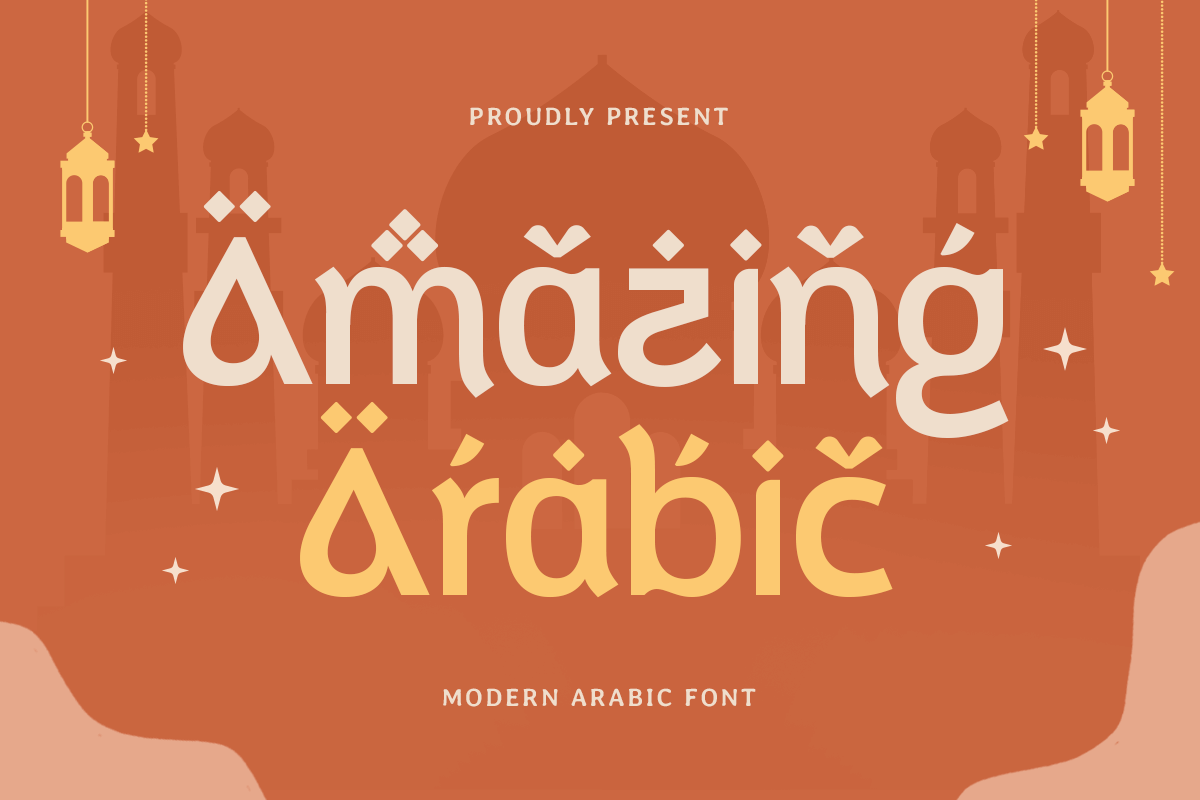
Amazing Arabic
-Modern Arabic FontAmazing Arabic - Modern Arabic Font
Amazing Arabic is a sophisticated Arabic font designed to bring charm and modernity to your creative projects. Ideal for Ramadan greetings, branding, invitations, or banners, this font combines traditional Arabic script with a contemporary touch. Its clean and refined design ensures versatility, making it suitable for both formal and festive occasions.
Inspired by the rich heritage of Arabic calligraphy, Amazing Arabic stands out with its balanced forms and fluid strokes. Whether you're working on digital campaigns, print designs, or social media content, this font offers a polished aesthetic that enhances your message while respecting cultural values.
Transform your projects into timeless pieces with Amazing Arabic. Its modern character exudes elegance and sophistication, making it the perfect choice for designs that demand a blend of beauty and authenticity.
Amazing Arabic Modern Arabic Font Features:
Elegant and Versatile Arabic Script
Ideal for Ramadan Greetings, Branding, and Social Media